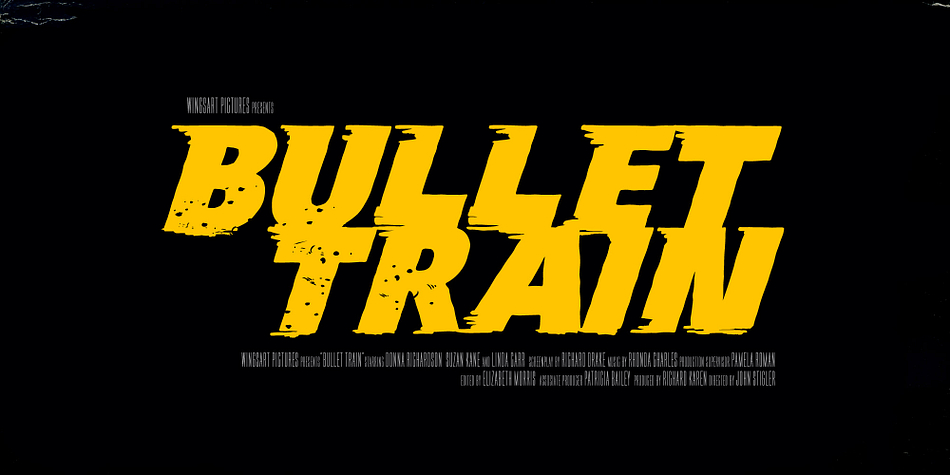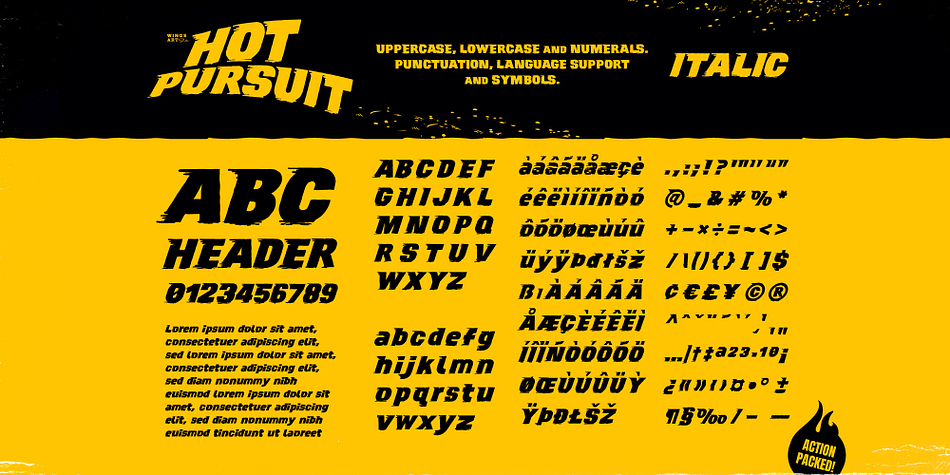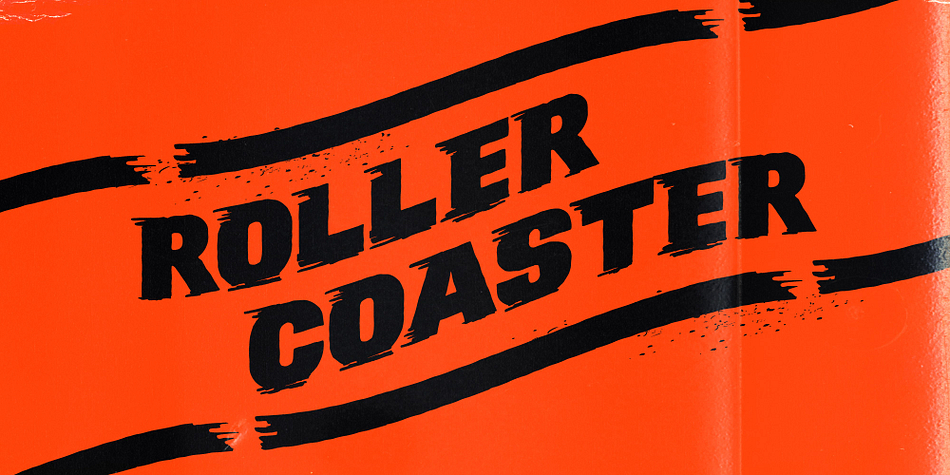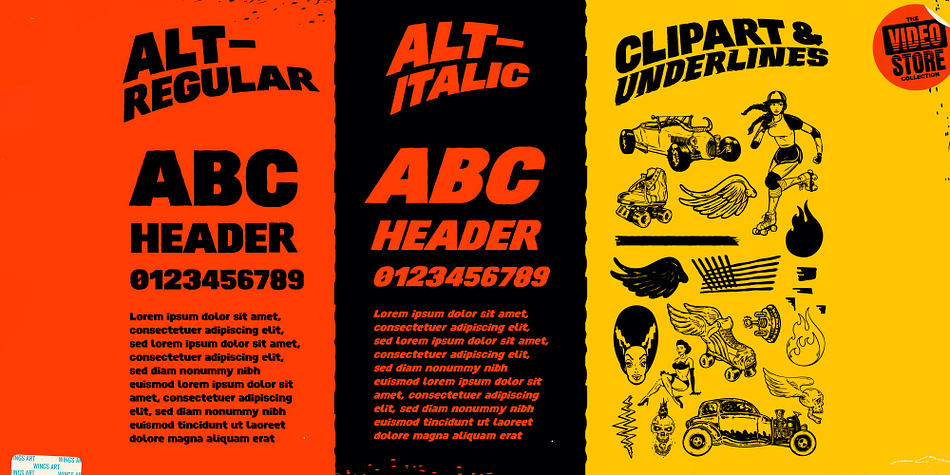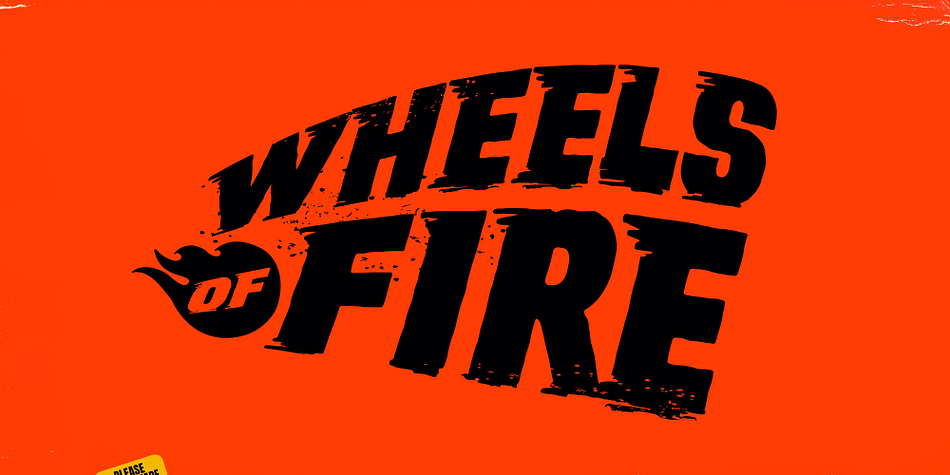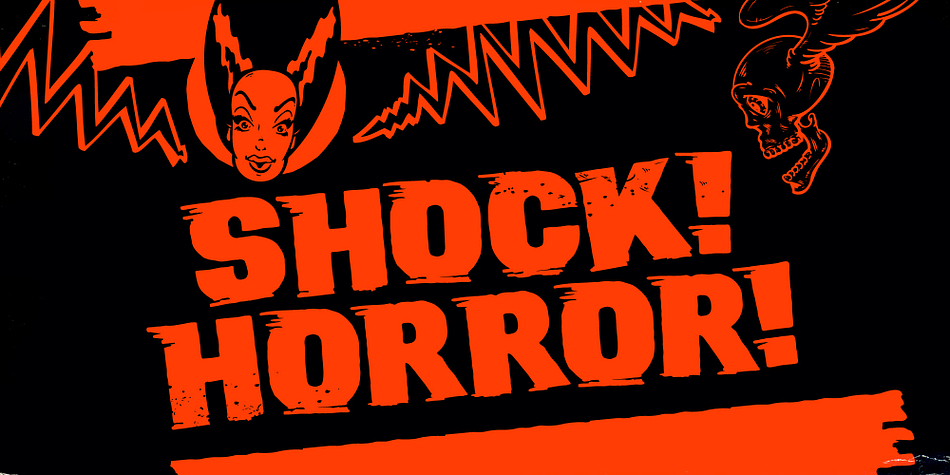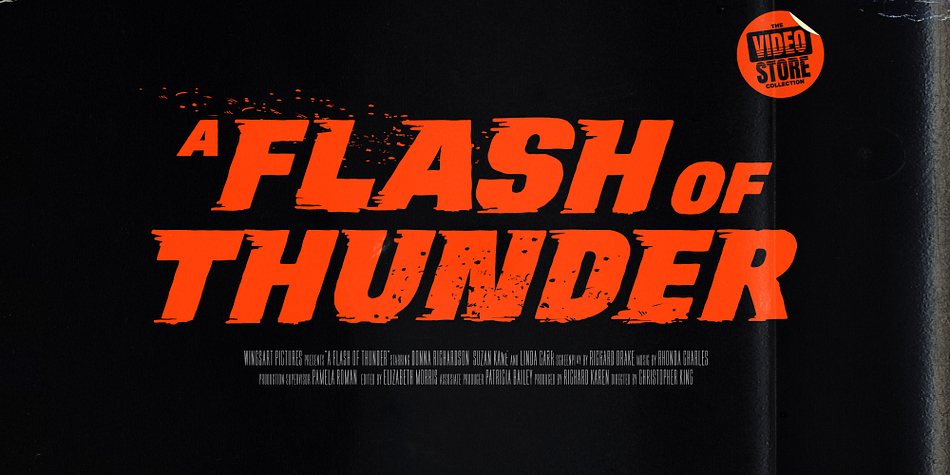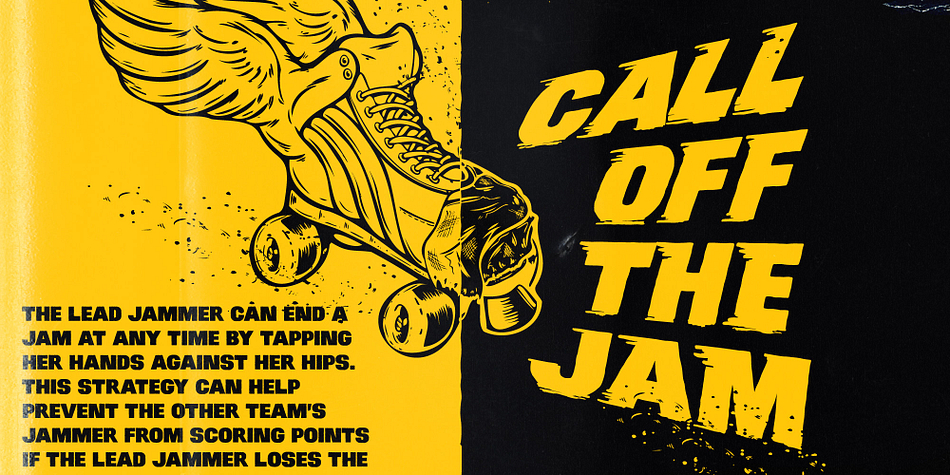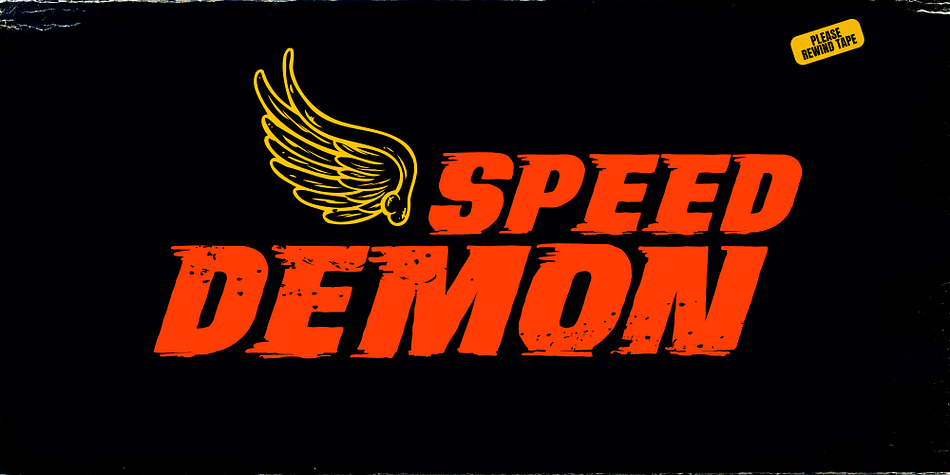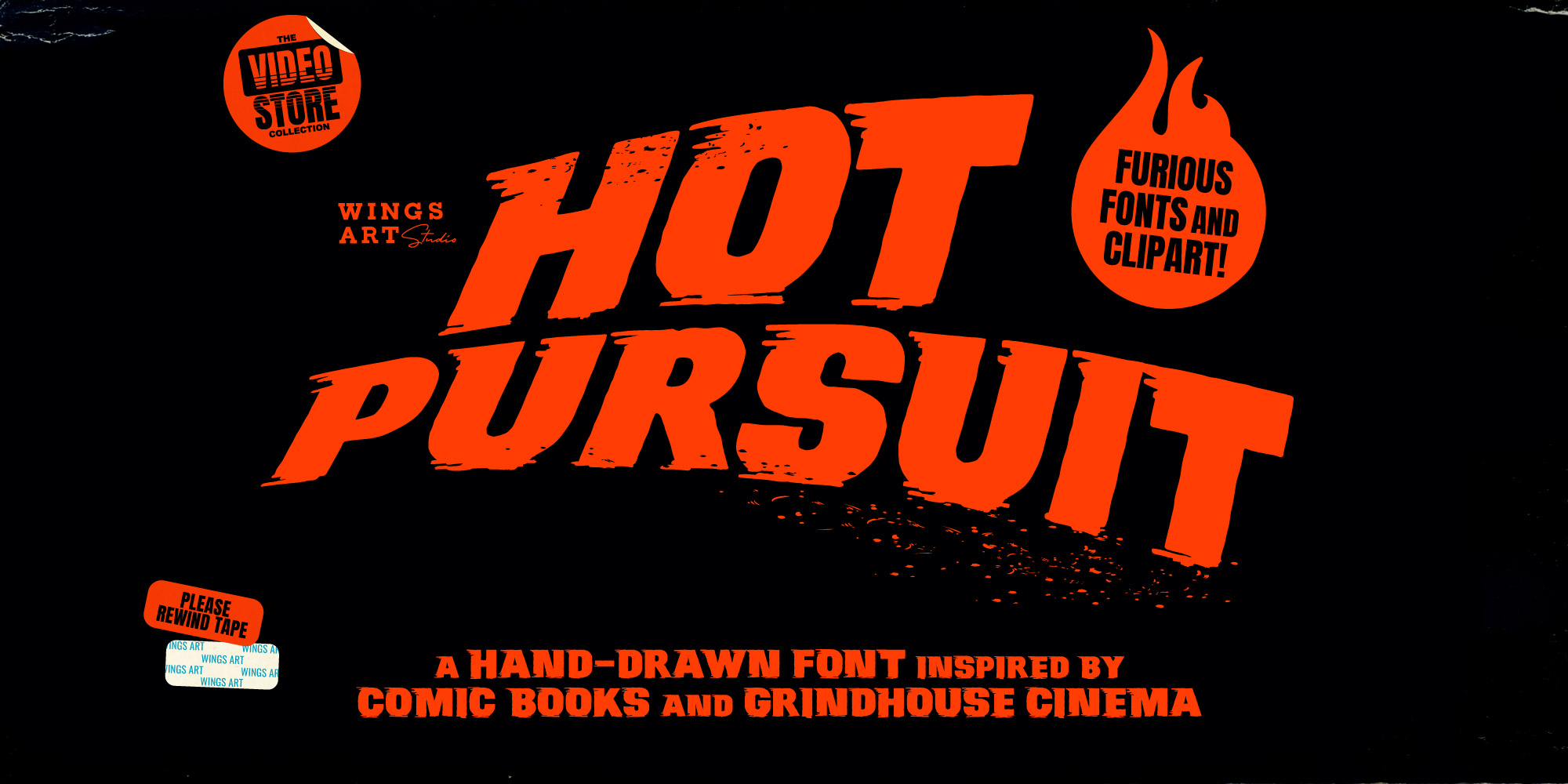
Hot Pursuit
Hot Pursuit is a display sans and dingbat font family. This typeface has five styles and was published by Wingsart Studio.
A grungy hand-drawn font with attitude inspired by comic books, roller derby, and bad grindhouse movies.
Hot Pursuit is a boiling pot of pop-culture references ranging from 70s chase movies to roller derby, horror comics, to grindhouse cinema. All combining to create a hand-drawn font for grungy designs with maximum punch. Supplied in regular and italic styles, it creates titles that race off the page, perfectly suited for dynamic movie posters and headlines.
Along with the four font styles, you’ll also find a host of original comic art by Christopher King, plus symbols and underlines to complement your type.
Hot Pursuit contains unique uppercase and lowercase characters, numerals, punctuation, and language support. It’s a bad-ass font ready for your t-shirts, posters, stickers, movie titles, YouTube videos, and more! Check out the visuals to see it in action for yourself.
Hot Pursuit Font:
- Regular
- Italic
- Alternate
- Alternate Italic
- Clipart and Underlines*